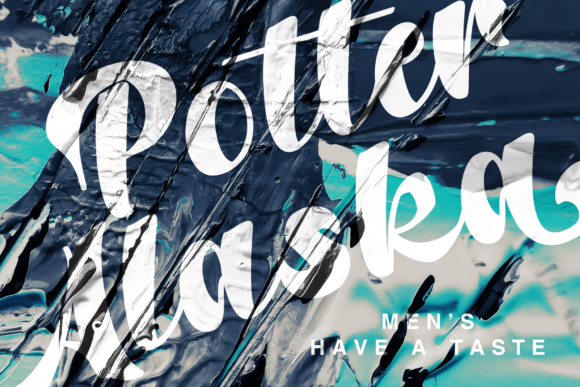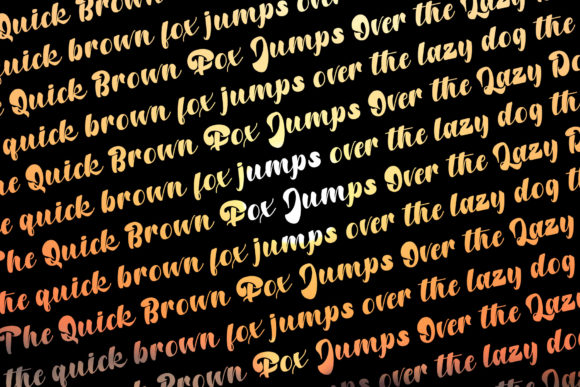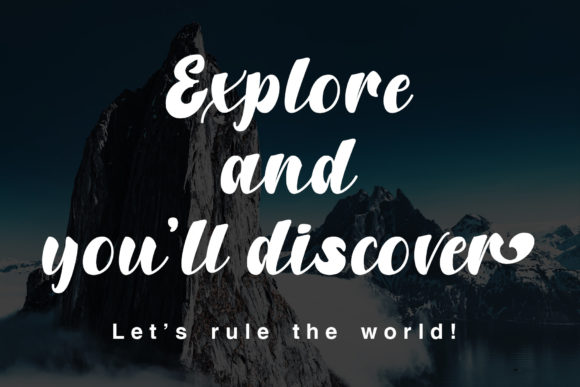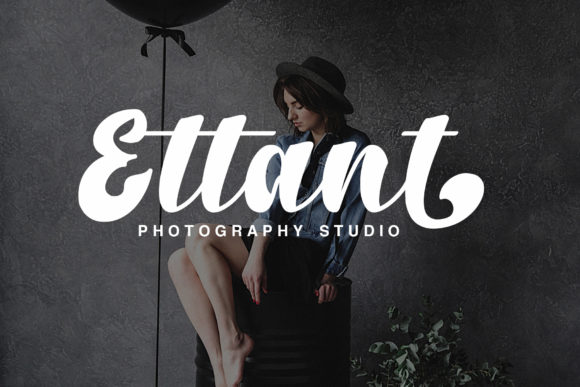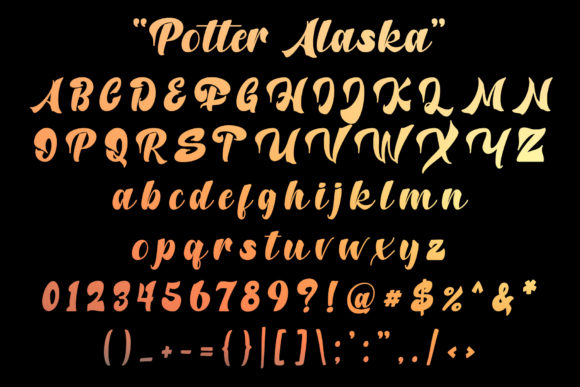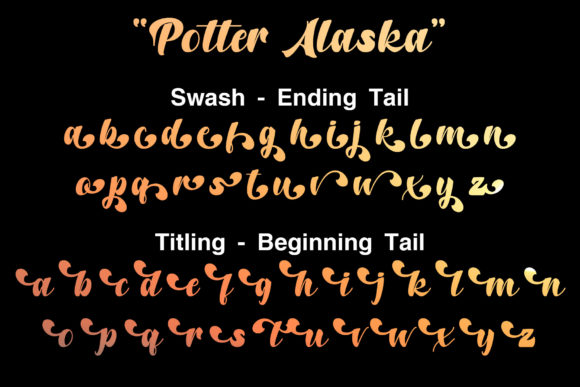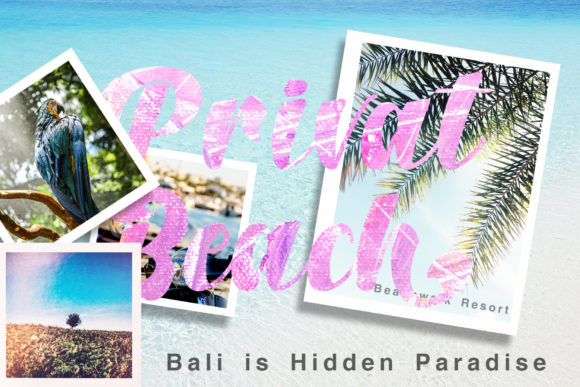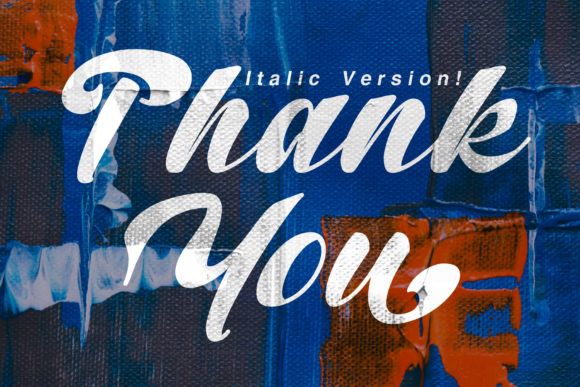
Potter Alaska Font
About Potter Alaska Font
Potter Alaska is a bold and fun handwritten font with an adventurous feel. It will turn any design project into a stand out!